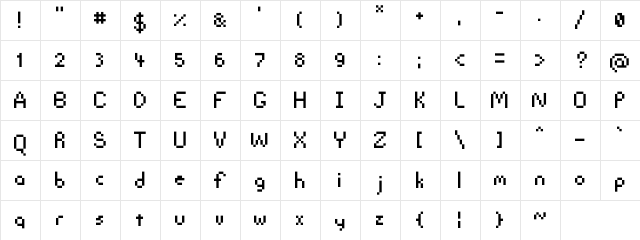
BitsyButton Regular
Design Context for BitsyButton Typeface
BitsyButton takes a measured approach to typography — its balanced proportions and neutral character make it a reliable workhorse for both digital and print work.
Pro Tip: Use BitsyButton in both headline and body roles to test its range before committing to a single application.